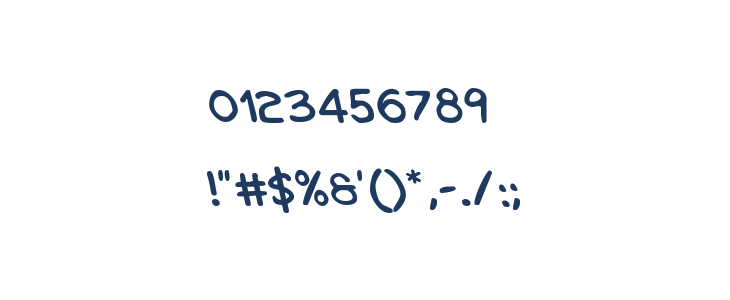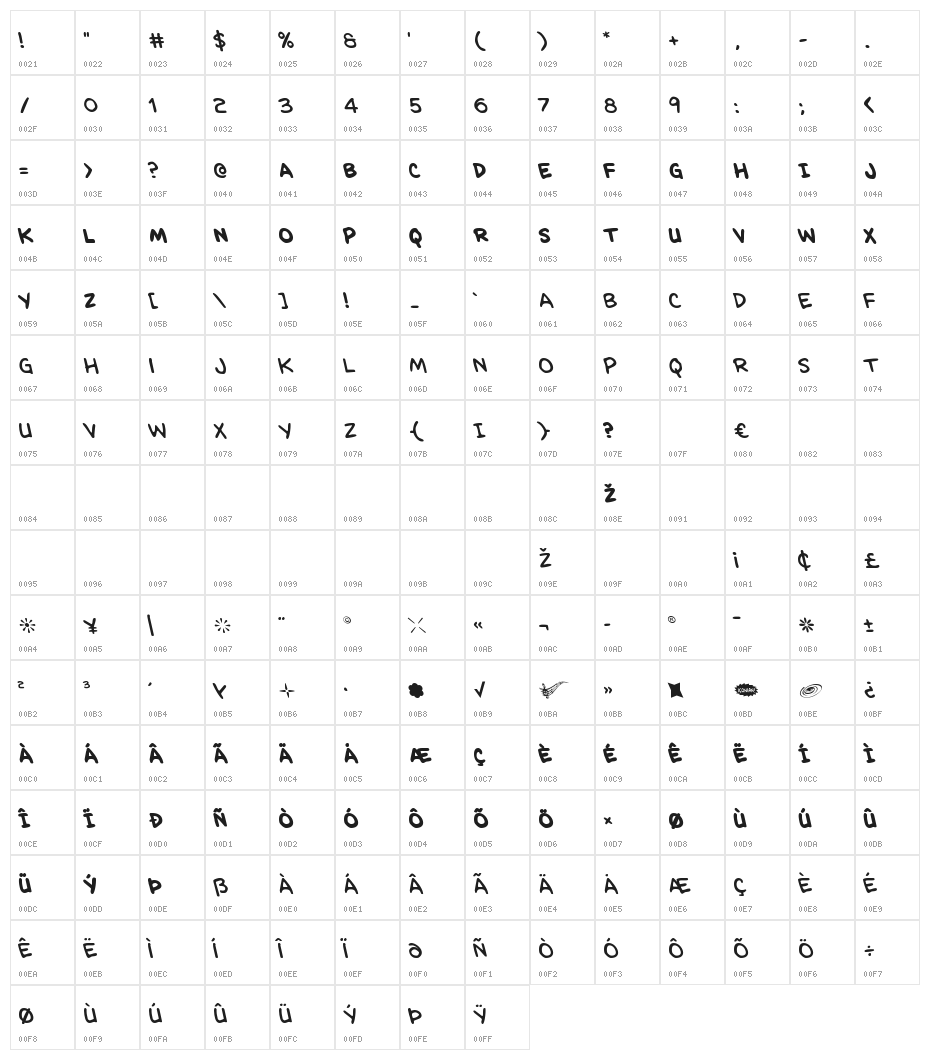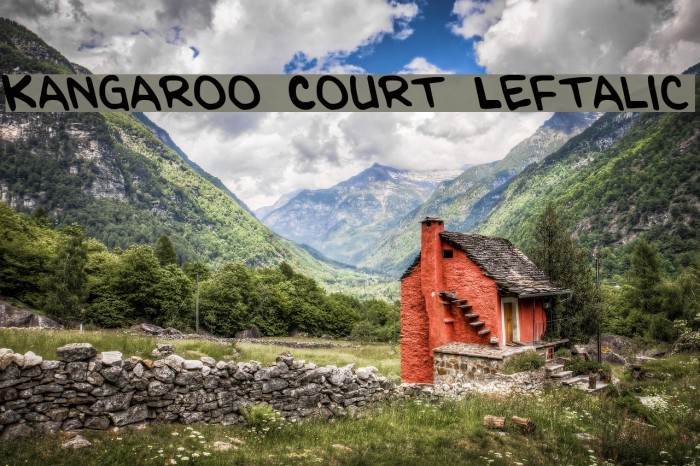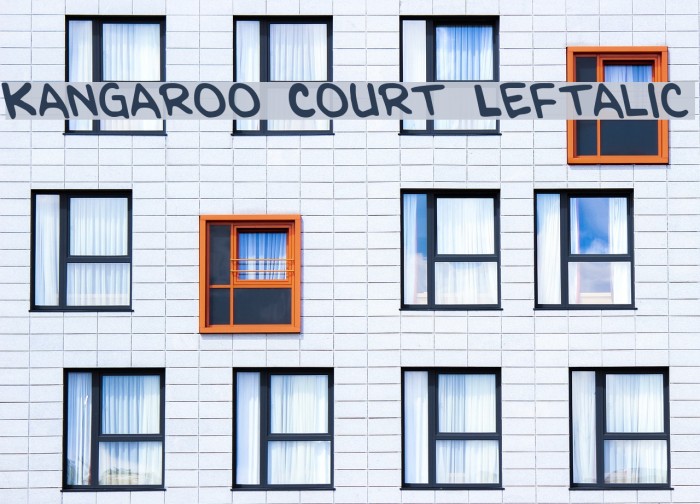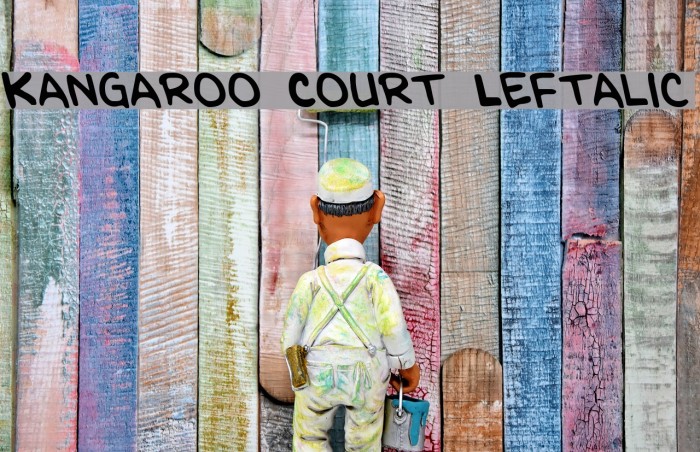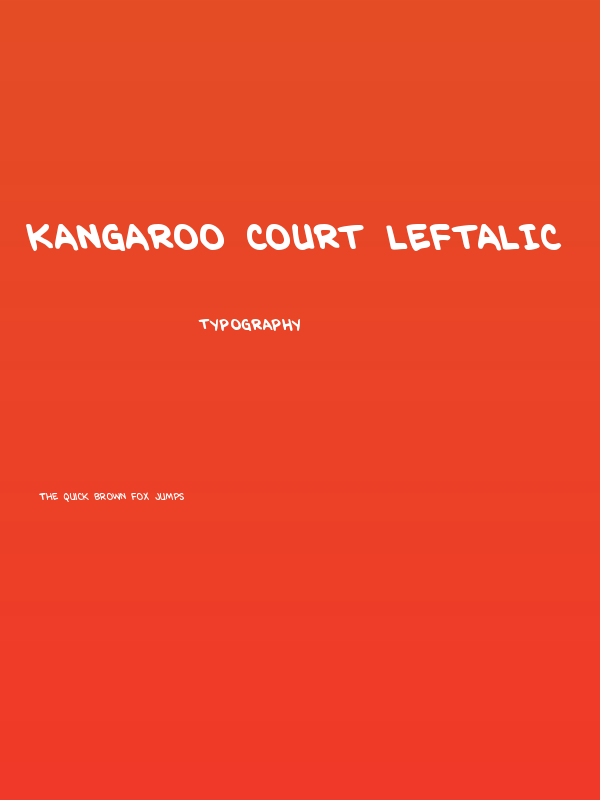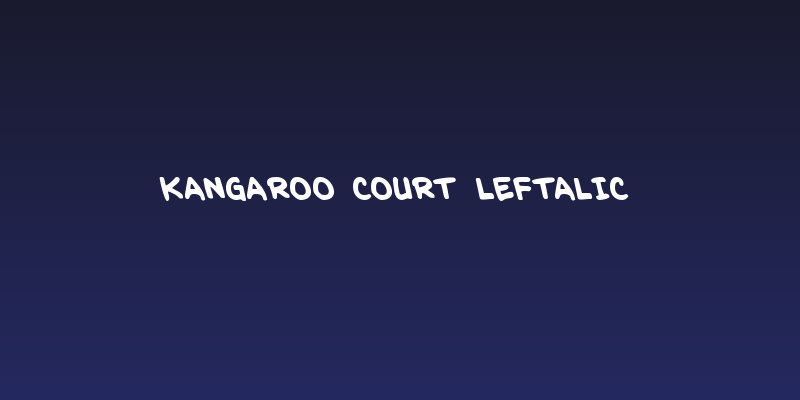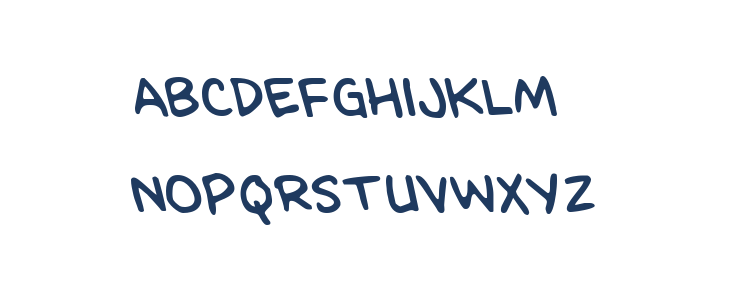
Kangaroo Court Leftalic Font
Kangaroo Court Leftalic Description
This playful and energetic font features a handwritten style with a casual, informal appearance. The letters are slightly slanted, giving a dynamic and lively feel. The strokes are bold and rounded, providing a friendly and approachable look. The font maintains a consistent weight throughout, with medium contrast between thick and thin strokes. The character spacing is normal, ensuring readability while retaining its whimsical charm. This font is versatile and can be used to add a personal touch to various design projects.
Overall StylePlayful
Use CaseHeadlines, Logos, Informal Text
Proposed ProjectsIdeal for children's books, playful branding, casual invitations, and creative social media graphics.